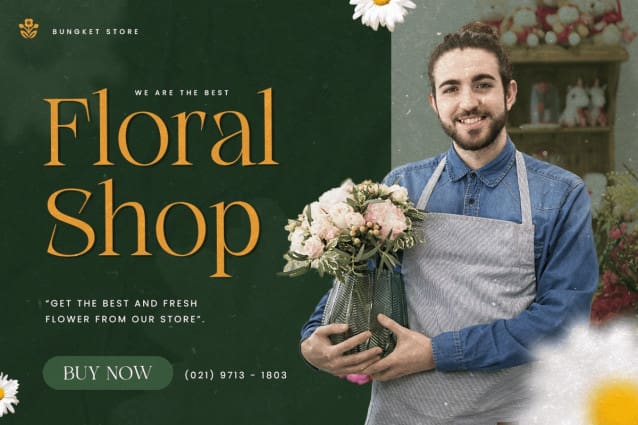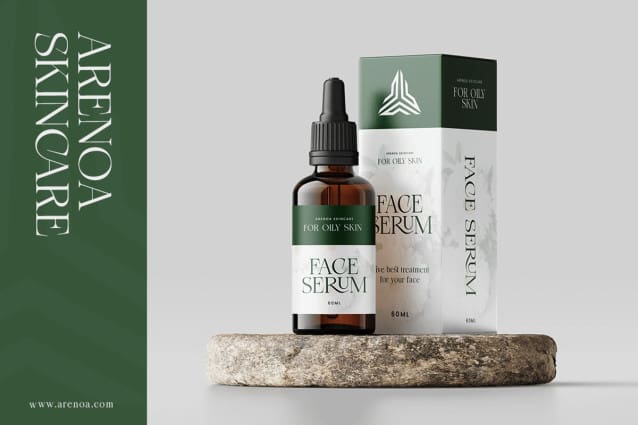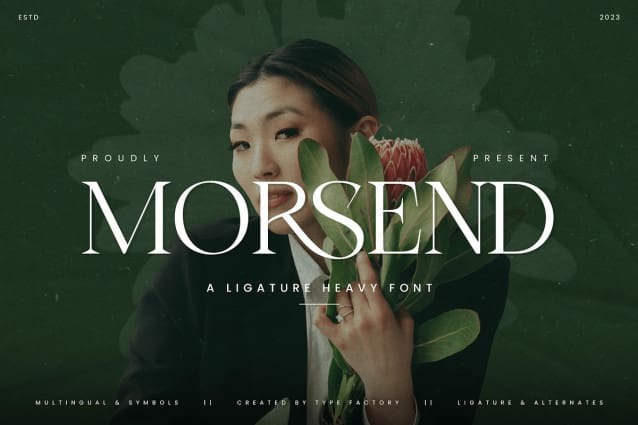
Morsend Font
Morsend Font is a sophisticated ligature-heavy font designed to create visually striking text. Its intricate ligatures and heavy weight make it perfect for luxury branding, editorial designs, high-end packaging, and eye-catching logos. Morsend’s elegant yet commanding style adds a sense of uniqueness and refinement to any project, ensuring your designs stand out with bold sophistication. Ideal for both print and digital use, Morsend Font brings a modern and stylish flair to your work with its beautiful ligature connections.